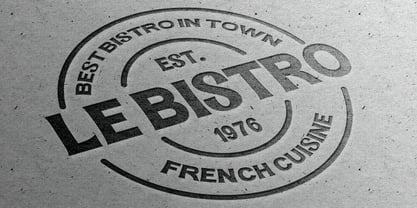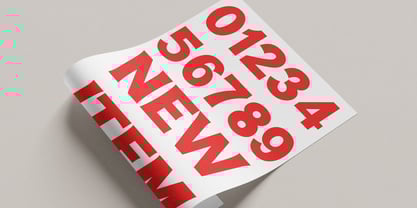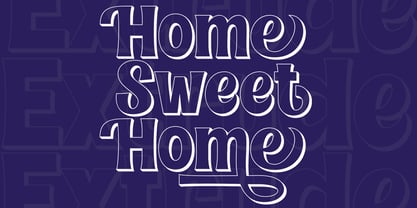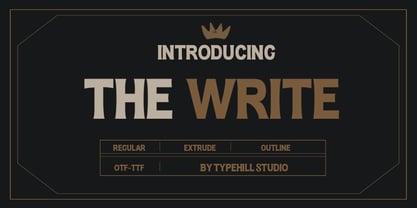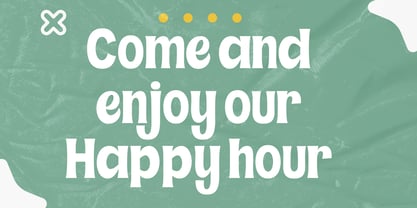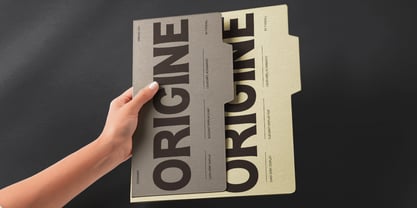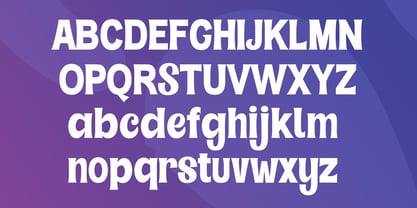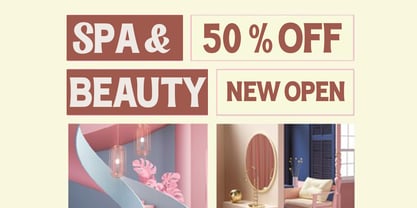
The Write
by Typehill Studio
The The Write Font Family was designed by Teuku Fahruddin and published by Typehill Studio. The Write contains 3 styles and family package options. More about this family
The Write Font Trio attracts a typeface that is smooth, clean, unique, elegant, modern, feminine, sensual, glamorous, simple and very easy to read. Classic style is very suitable to be applied in various formal forms such as invitations, labels, menus, logos, fashion, make up, stationery, letterpress, romantic novels, magazines, books, greeting/wedding cards, packaging, labels.
Designers: Teuku Fahruddin
Foundry: Typehill Studio